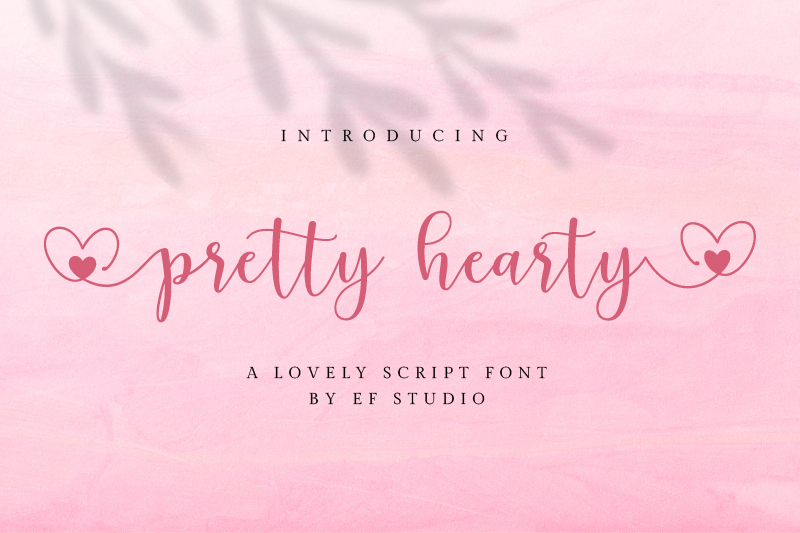
The Pretty Hearty font exudes both charm and elegance, making it a splendid choice for wedding invitations, thank you cards, quotes, greeting cards, logos, business cards, and any design requiring a graceful handwritten touch.